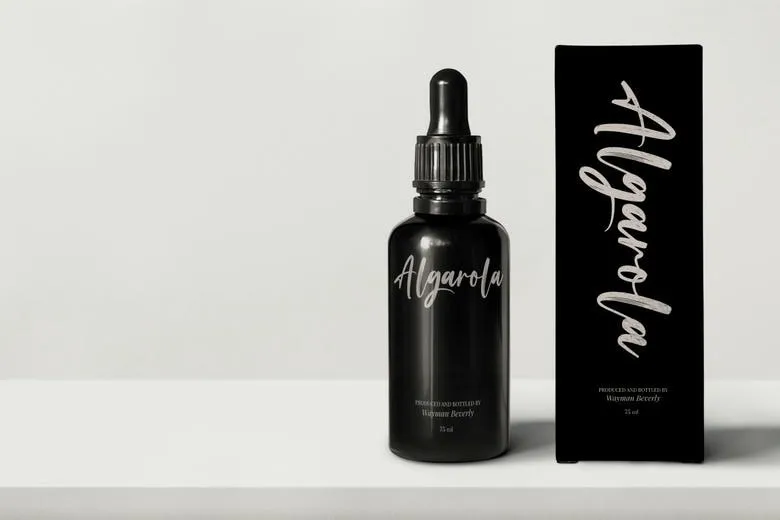
Brush Signature is a delicate and cursive handwritten font. This gentle font will look gorgeous on a variety of design ideas. it’s perfect for logo, branding, title, social media posts, advertisements, product packaging, product designs, label, photography, watermark, special event, magazine, web design, etc. You can find more Brush and Script font by clicking the highlighted text.
Brush Signature Font is a Script Brush Font